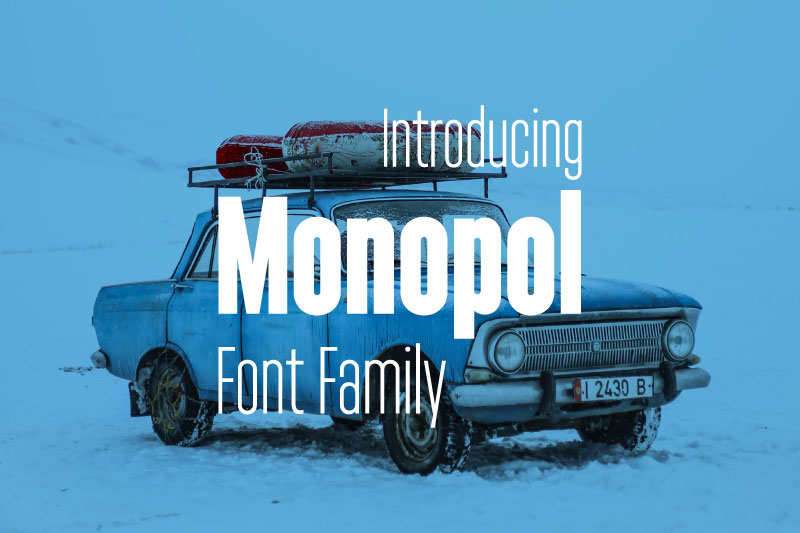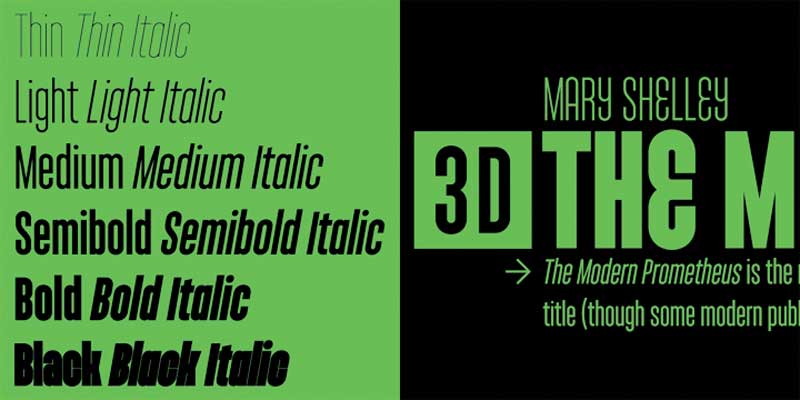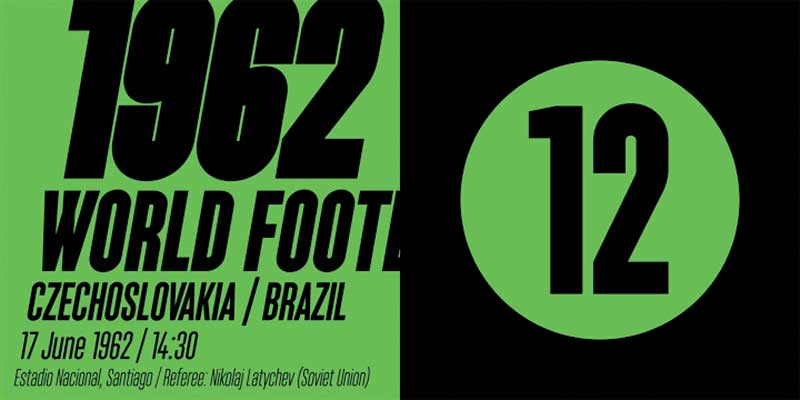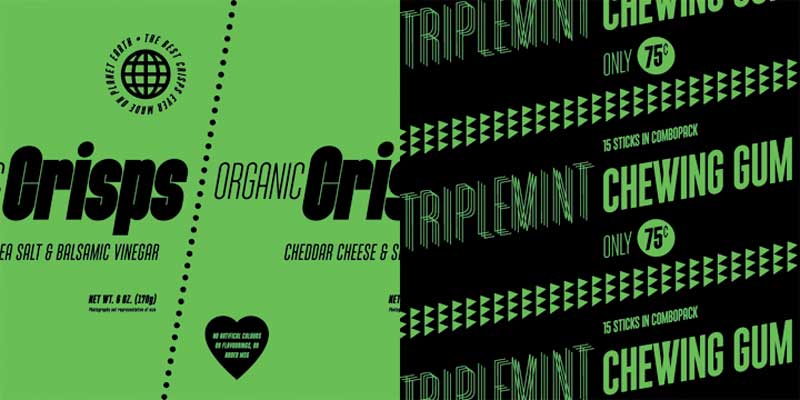
Monopol Font Family The type family consists of six well-distinguished weights, from hair-thin all the way to the one black as the deepest night. In line with the current trend, it touches all boundaries, it stretches beyond technical possibilities and in extremes, it is almost illegible – the counters are reduced to a hairline.
All italics have the same proportions as their corresponding regular styles, which emphasizes the block-like appearance of the set text. Monopol was designed to thrive on posters, exhibit stands, book covers, magazines, and in complex visual styles. Its twelve styles make it an ideal tool for creating a dynamic composition using solely typographic means.